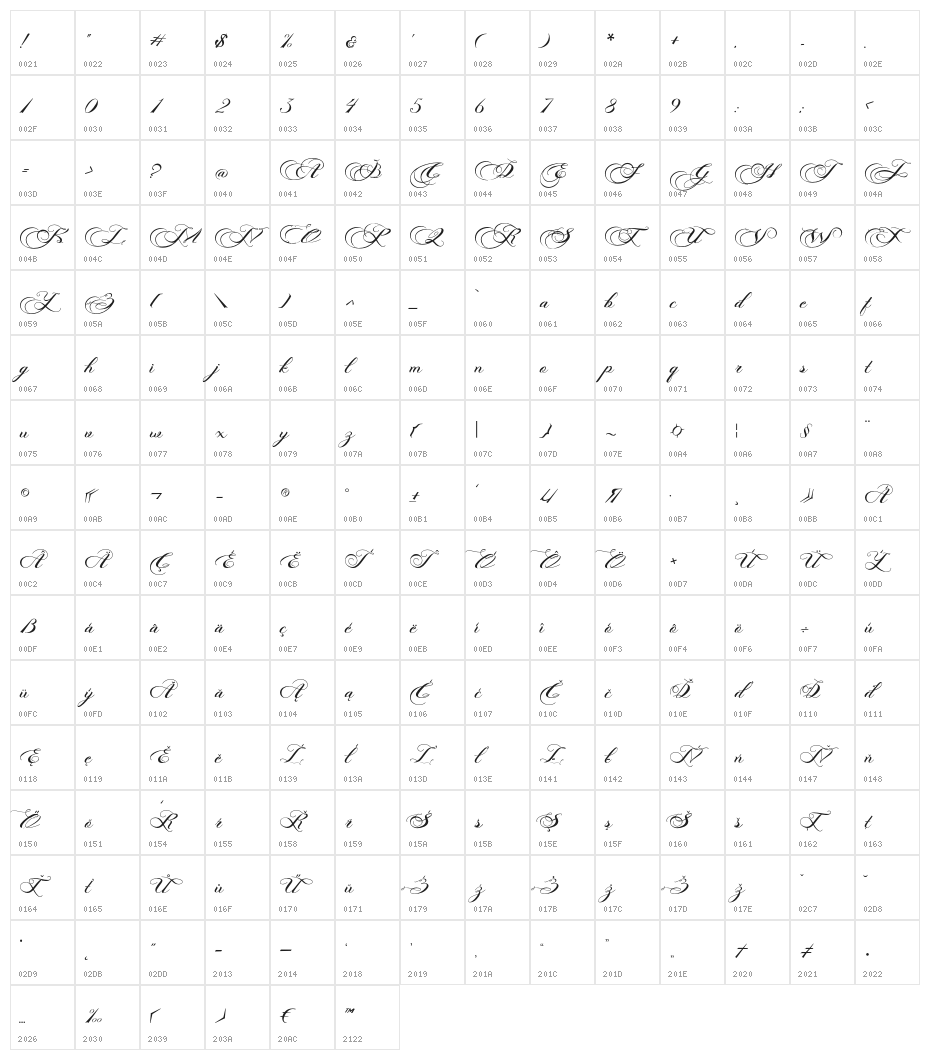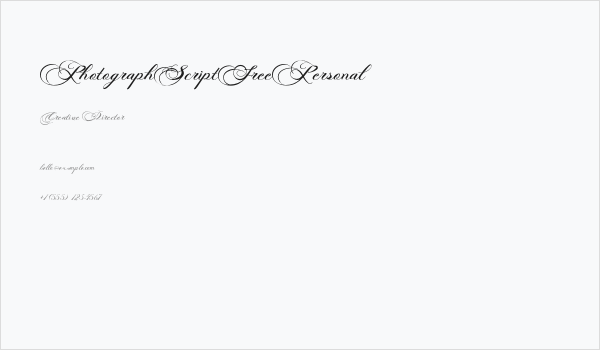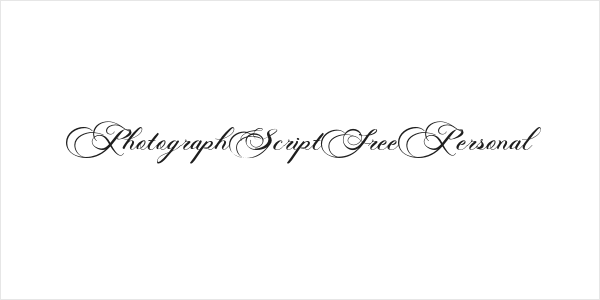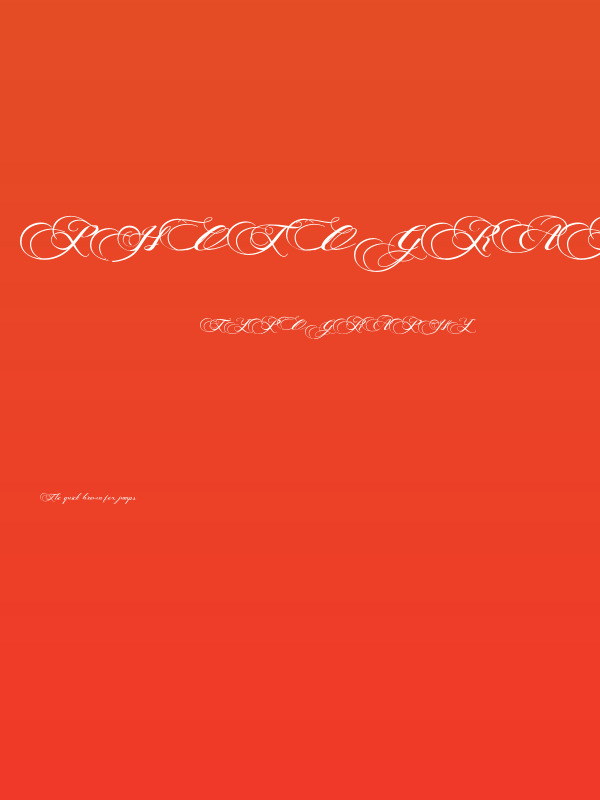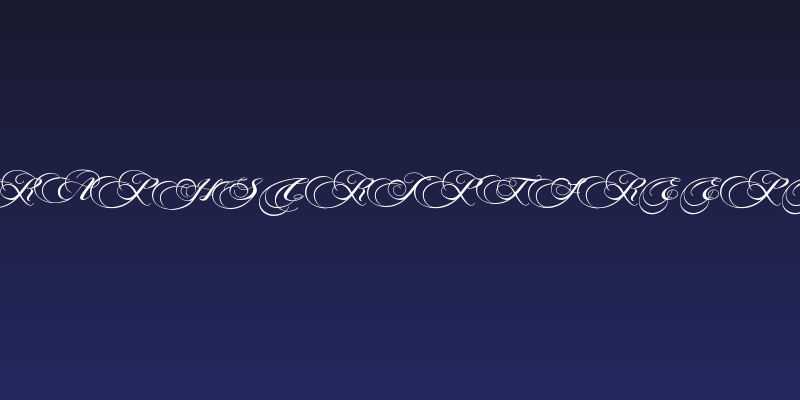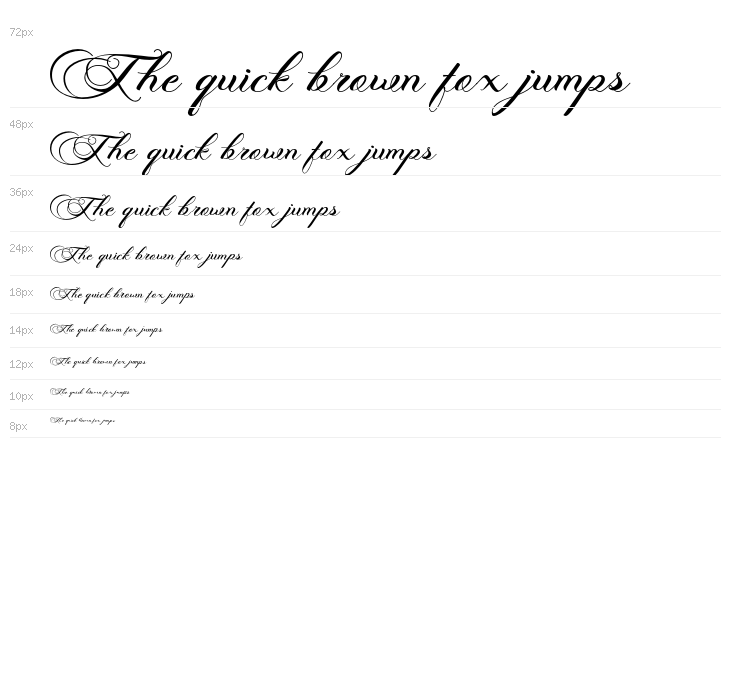
PhotographScriptFreePersonal Font
PhotographScriptFreePersonal Description
This elegant script font features intricate, flowing letterforms with elaborate swashes and flourishes, particularly in the uppercase letters. The lowercase characters maintain a smooth, cursive style that complements the ornate capitals. The numbers and special characters are designed with similar attention to detail, ensuring a cohesive look across all glyphs. This font exudes a sense of sophistication and grace, making it ideal for formal invitations, branding, and decorative purposes. Its artistic flair and high contrast in stroke thickness add to its visual appeal, making it stand out in any design.
| Use Case | Headlines, Logos, Invitations |
| Proposed Projects | Ideal for wedding invitations, luxury branding, greeting cards, and decorative headings. |